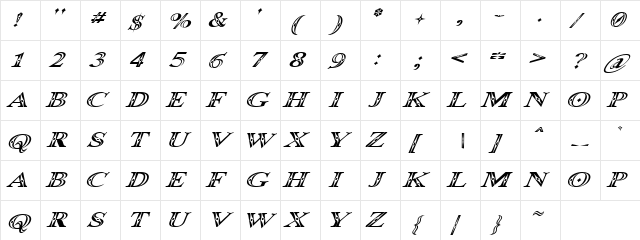
Lintas Regular
Design Context for Lintas Typeface
Lintas is a composed and adaptable typeface that performs quietly and consistently across a wide range of design contexts.